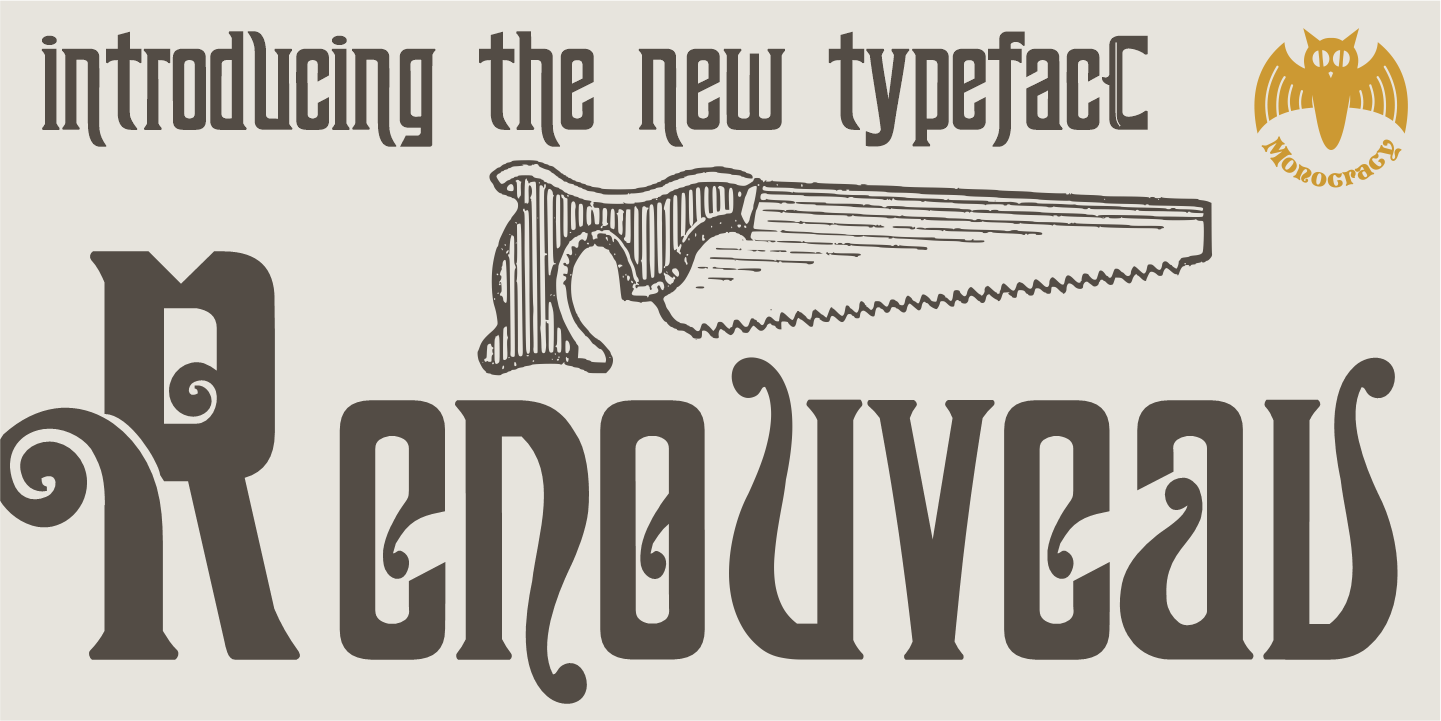
Renouveau
About Renouveau
Intellecta in partnership with Monocracy Types (Paulo W) presents "Renouveau". Renouveau : taste the feeling of vintage typography. Inspired by the old letters at classic Victorian Era into the first decades of the XX century. This is a multi…